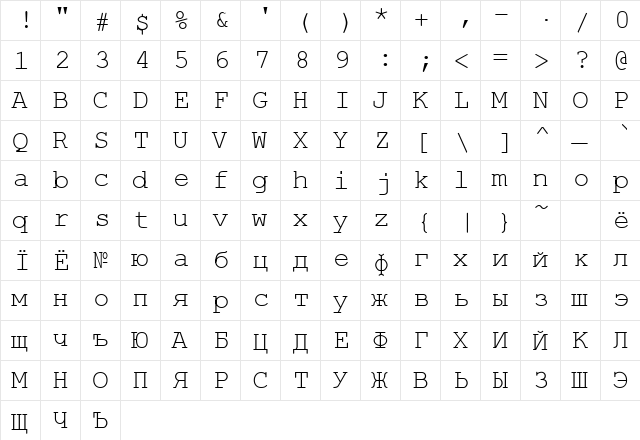
K8 Kurier Fixed Regular
Design Context for K8 Kurier Fixed Typeface
K8 Kurier Fixed offers clean, dependable letterforms without strong stylistic allegiance, making it a practical choice for designers who need flexibility.